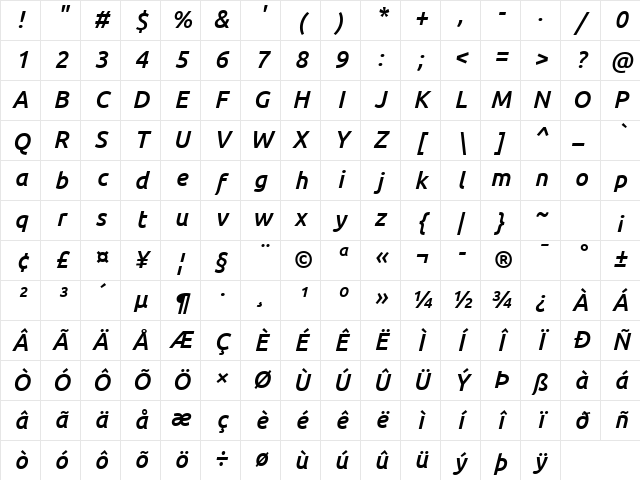
Ubuntu Nerd Font Bold Italic
Foundry: Dalton Maag Ltd
Designer: Dalton Maag Ltd
Ubuntu Nerd Font Family
Complete Ubuntu Nerd Font Bold Italic glyph index. Displaying only characters natively supported by Ubuntu Nerd Font Bold Italic font.
Design Context for Ubuntu Nerd Font
Ubuntu Nerd Font is a composed and adaptable typeface that performs quietly and consistently across a wide range of design contexts. The slanted form adds forward momentum and visual energy. Its bold stroke weight gives it real presence on the page.
Pro Tip: Use Ubuntu Nerd Font for emphasis, pull quotes, and subheadings where its slanted energy can add rhythm to the layout.
Who designed the Ubuntu Nerd Font Bold Italic font?